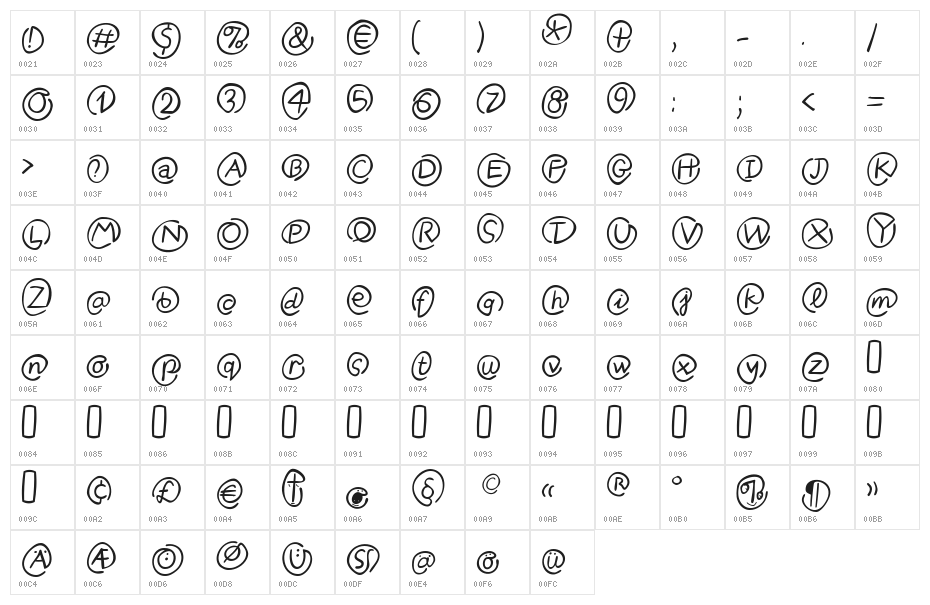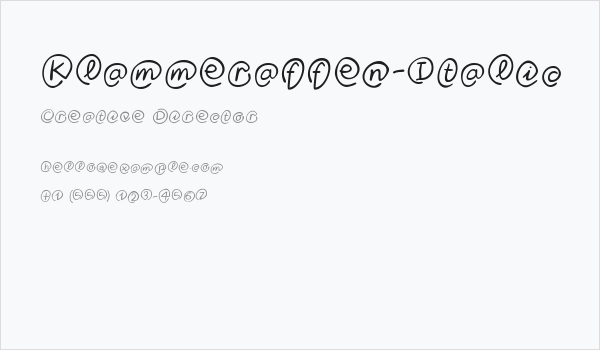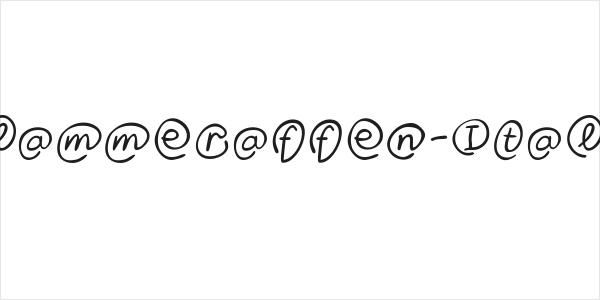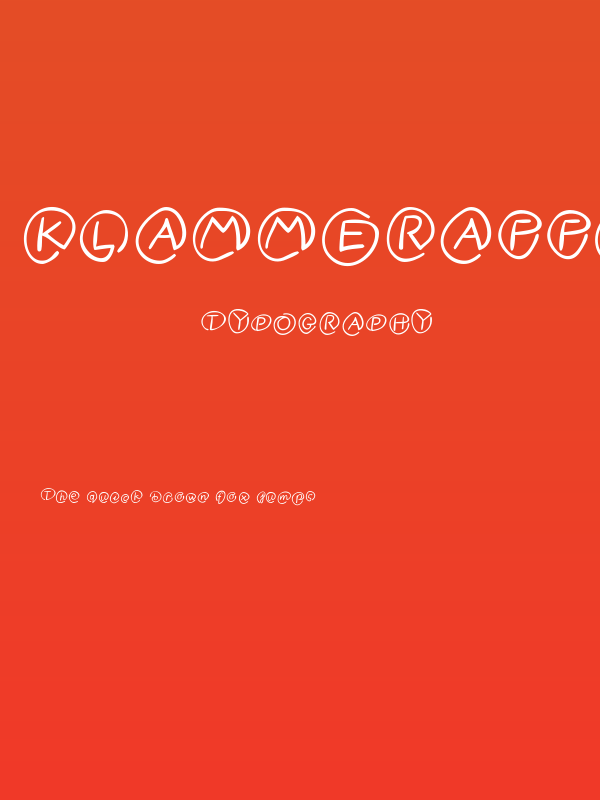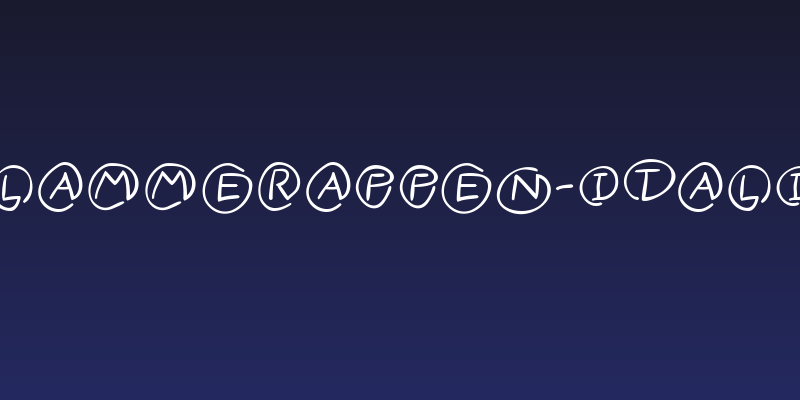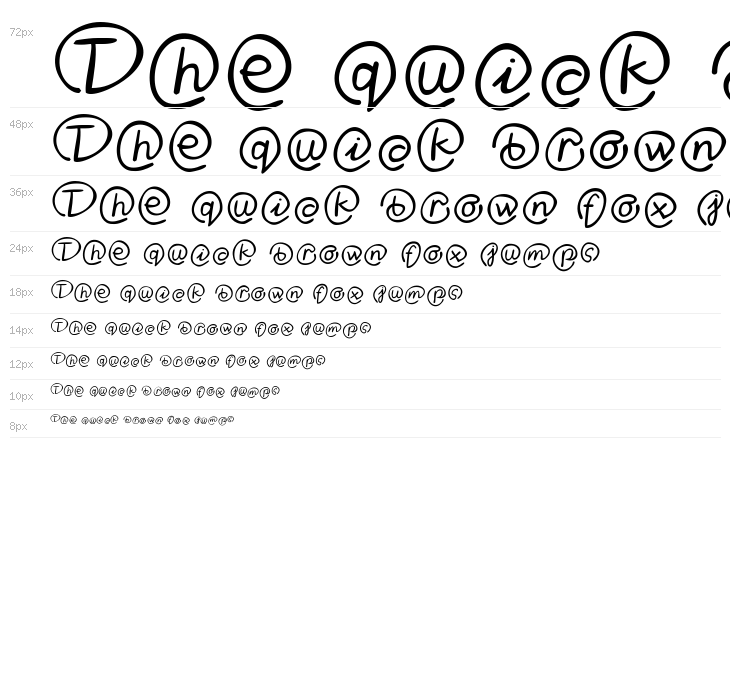
Klammeraffen-Italic Font
Klammeraffen-Italic Description
This playful and whimsical font features each character enclosed within a circular shape, creating a unique and eye-catching design. The letters are italicized, adding a sense of motion and fluidity. The strokes are bold and consistent, providing a strong visual presence. This font's distinctive style makes it stand out, with each character maintaining clarity despite the decorative encasement. The numbers and special characters follow the same design principle, ensuring uniformity across all elements. The font's overall appearance is modern and artistic, suitable for creative projects that require a touch of fun and originality.
Overall StyleModern, Artistic
Proposed ProjectsIdeal for children's books, playful branding, creative posters, and artistic invitations.